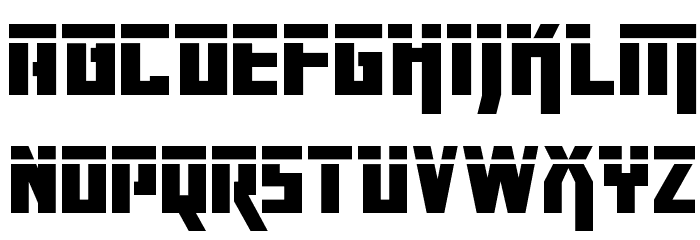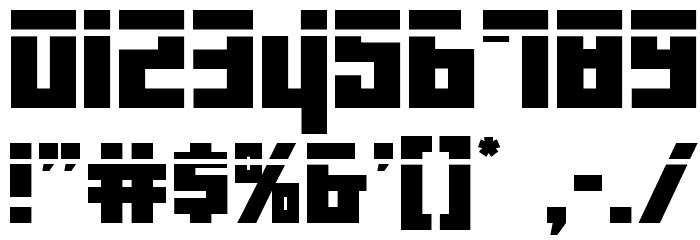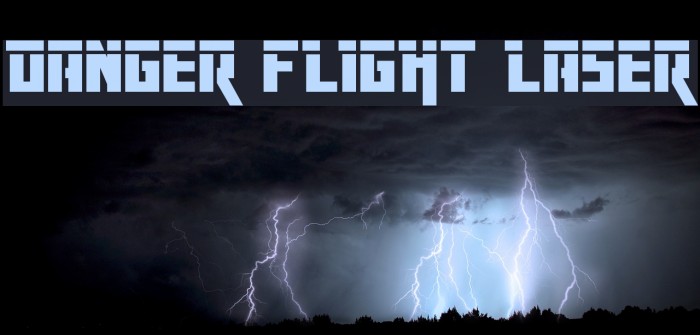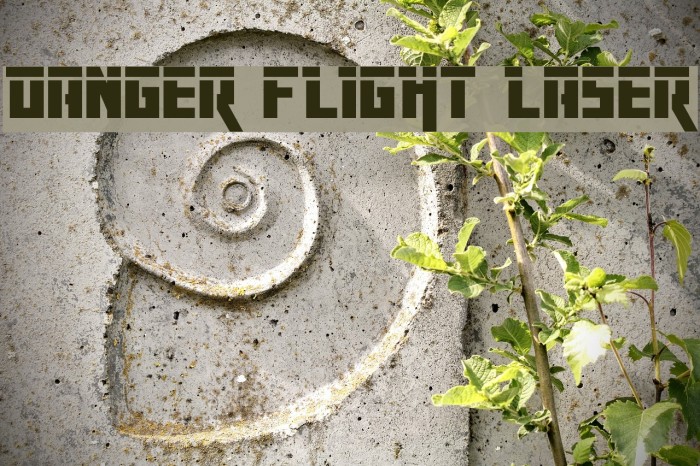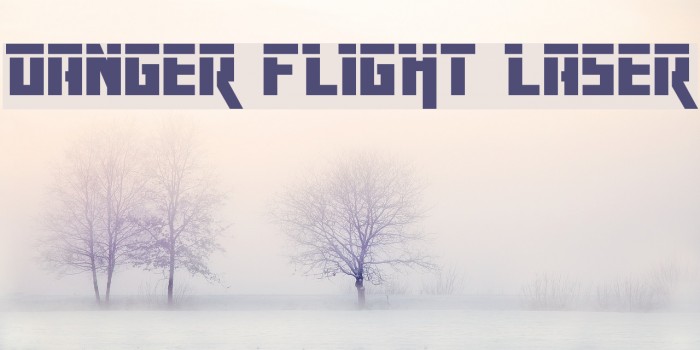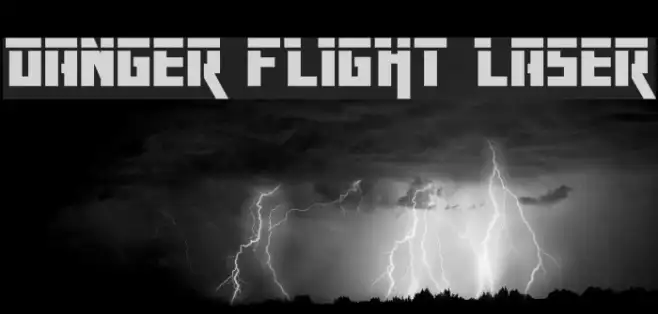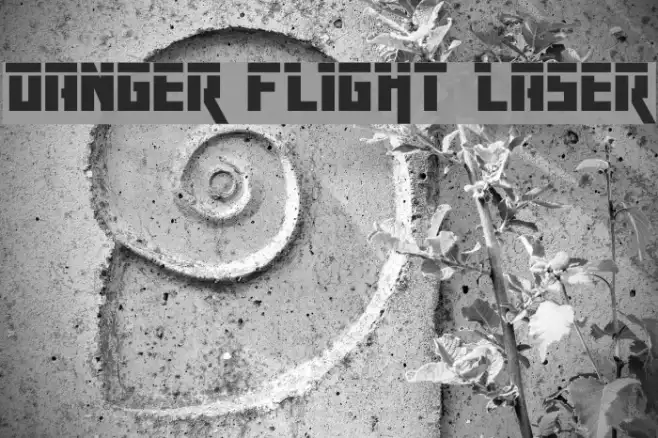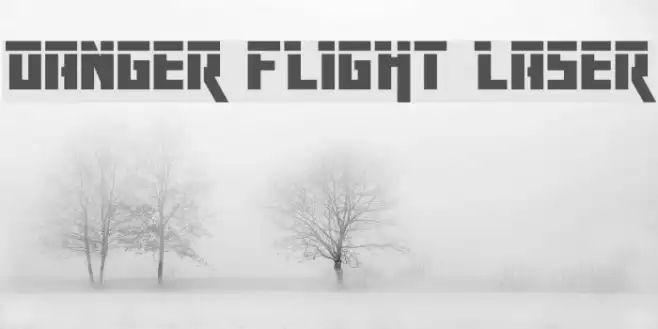
Danger Flight Laser Font
This font features a bold, geometric design with sharp angles and a futuristic aesthetic. The characters are blocky and uniform, creating a strong visual impact. The uppercase and lowercase letters are consistent in style, with a distinct, edgy appearance that suggests movement and speed. The numbers and special characters maintain this cohesive look, making the font suitable for dynamic and modern applications. Its unique style is reminiscent of digital displays or sci-fi themes, making it ideal for projects that require a bold and modern touch.
A bold, geometric font with a futuristic and edgy design.
- Proposed Projects: Ideal for sci-fi movie posters, video game titles, tech branding, and futuristic event flyers.
- Overall Style: Futuristic